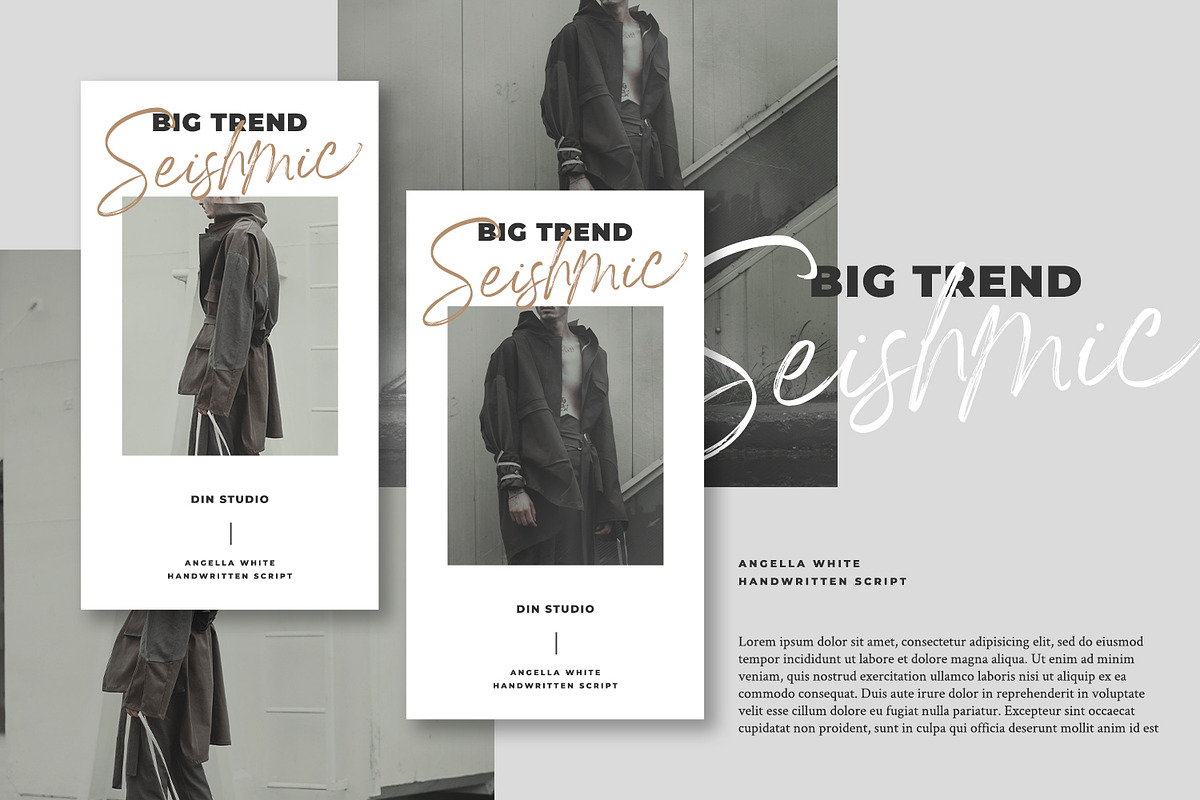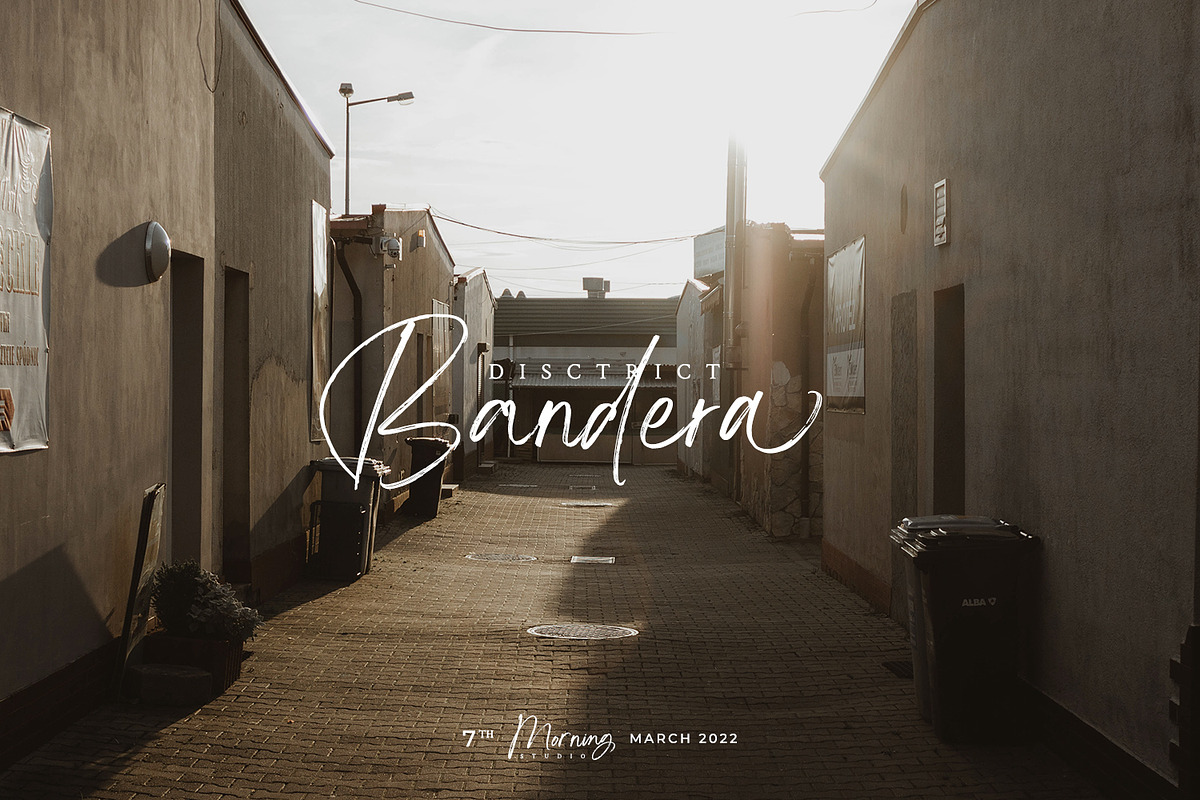
Angella White is a beautifully handcrafted font with a brush-style touch, designed to bring happiness and elegance to your projects. Each stroke and curve is carefully crafted to captivate and inspire. Perfect for posters, banners, logos, book covers, album covers, quotes, invitations, greeting cards, business cards, headings, merchandise, social media, and more.
- Standard Ligatures
- Stylistic Sets
- Multilingual Supports
- Numerals and Punctuation